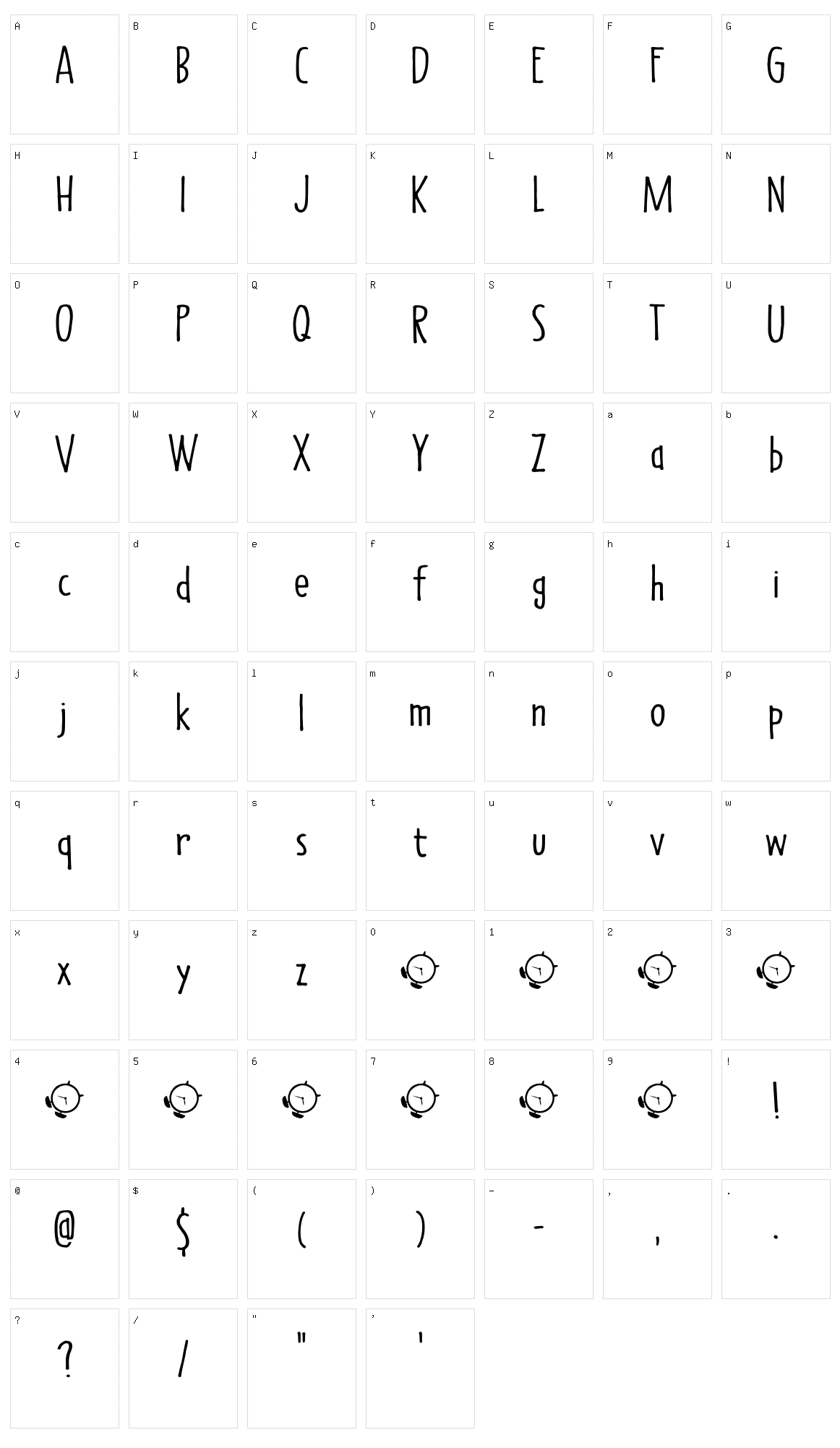
The free font Lazy Morning is carefully designed by Hanoded, showcasing a thoughtful balance of creativity and usability and falls under the Script font style. When you download the ZIP file, it contains only 112.03 KB of font files, making it lightweight and quick to download. Please review the license details below to understand permitted usage and distribution rights. If license information is not available, we recommend using this font for personal projects only or contacting the author directly for commercial usage permissions.